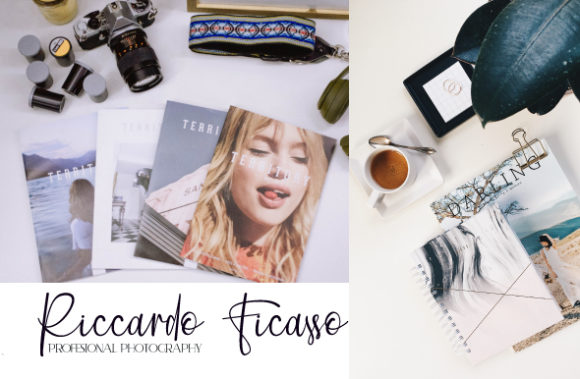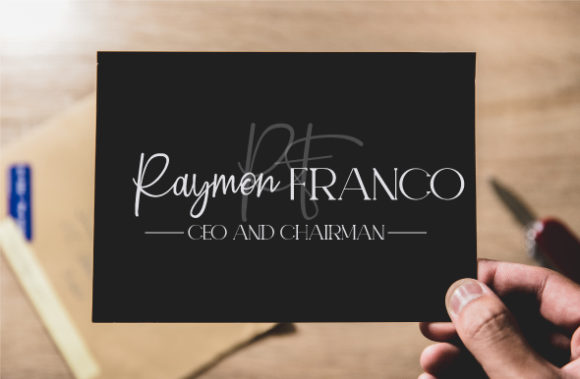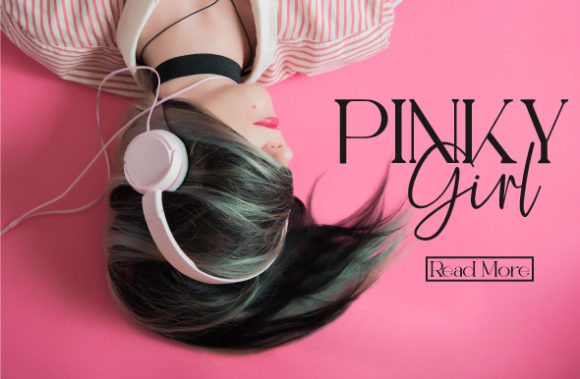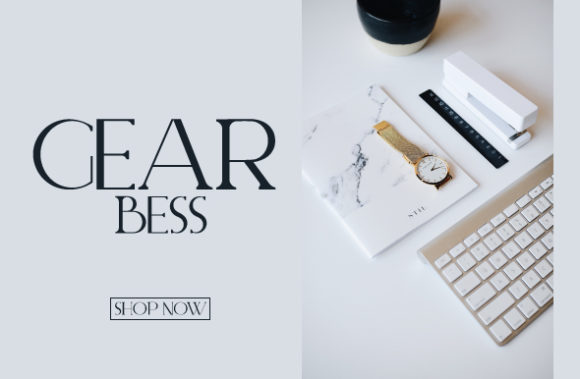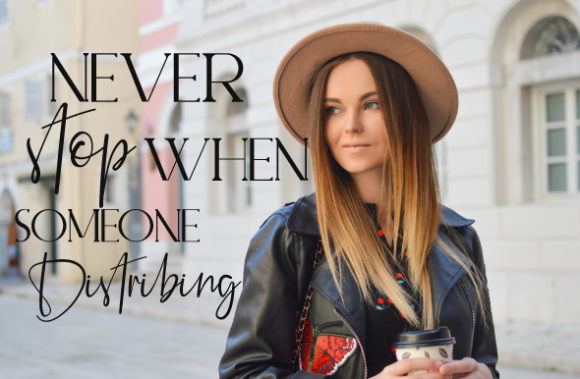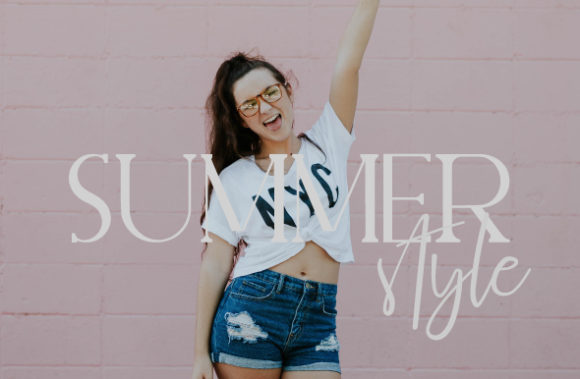
Elegant Fashion Duo Font: Elevate Your Designs with Style and Sophistication
In the world of design, fonts play a crucial role in conveying the tone and personality of a brand or creative project. For designers and crafters seeking to add a touch of elegance and sophistication to their work, the Elegant Fashion Duo Font is an exceptional choice. This stunning font duo comprises an elegant script and a striking sans version, which can be combined perfectly to create visually appealing and harmonious designs.
What is Elegant Fashion Duo Font?
The Elegant Fashion Duo Font is a carefully crafted font pairing that includes two distinct yet complementary fonts. The elegant script font features flowing curves and refined lines, evoking a sense of luxury and refinement. On the other hand, the striking sans font boasts clean lines and a modern aesthetic, providing a beautiful contrast to the script font. This versatile font duo is perfect for a wide range of design applications, including banners, wedding invitations, shirts, branding, logos, and many more.
Key Features of Elegant Fashion Duo Font
- Elegant Script Font: The elegant script font is designed to add a touch of sophistication and glamour to your designs. Its flowing curves and refined lines make it perfect for creating beautiful wedding invitations, luxury brand logos, and elegant banners.
- Striking Sans Font: The striking sans font provides a modern and clean contrast to the elegant script font. Its bold lines and geometric shapes make it ideal for creating eye-catching headlines, titles, and branding elements.
- Perfect Font Pairing: The Elegant Fashion Duo Font is designed to be used together, creating a harmonious and visually appealing combination that elevates your designs.
- Versatile: This font duo is suitable for a wide range of design applications, from digital projects to print materials.
Benefits of Using Elegant Fashion Duo Font
Using the Elegant Fashion Duo Font in your designs offers several benefits, including:
- Enhanced Visual Appeal: The elegant script and striking sans fonts work together to create visually stunning designs that capture attention and leave a lasting impression.
- Increased Versatility: With two fonts in one duo, you can experiment with different design combinations and applications, making it an excellent value for designers and crafters.
- Time-Saving: The Elegant Fashion Duo Font saves you time and effort in finding the perfect font pairing, allowing you to focus on other creative aspects of your project.
- Professional Look: This font duo helps you achieve a professional and polished look in your designs, making it ideal for clients or personal projects that require a high-end aesthetic.
Design Ideas Using Elegant Fashion Duo Font
The Elegant Fashion Duo Font is an incredibly versatile font pairing that can be used in a variety of design projects. Here are some ideas to get you started:
- Wedding Invitations: Create beautiful and elegant wedding invitations that set the tone for a sophisticated and memorable event.
- Luxury Branding: Use the Elegant Fashion Duo Font to create stunning logos, business cards, and marketing materials for high-end clients or personal brands.
- Fashion Designs: Add a touch of elegance and style to your fashion designs, including clothing labels, packaging, and promotional materials.
- Banners and Signage: Create eye-catching banners and signage for events, businesses, or personal projects that require a professional and polished look.
The Elegant Fashion Duo Font is an exceptional choice for designers and crafters seeking to add a touch of elegance and sophistication to their work. With its elegant script and striking sans fonts, this versatile font duo is perfect for a wide range of design applications. Whether you’re creating wedding invitations, luxury branding, fashion designs, or banners, the Elegant Fashion Duo Font is sure to elevate your designs and leave a lasting impression.